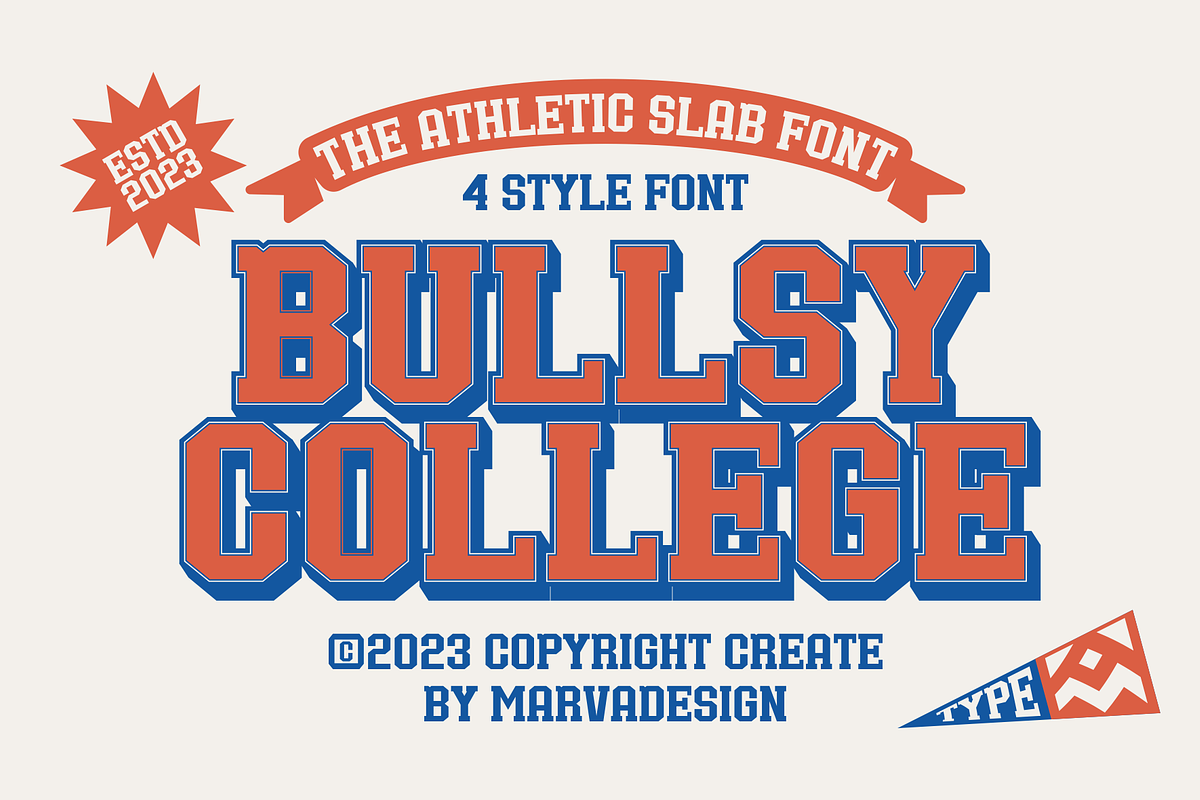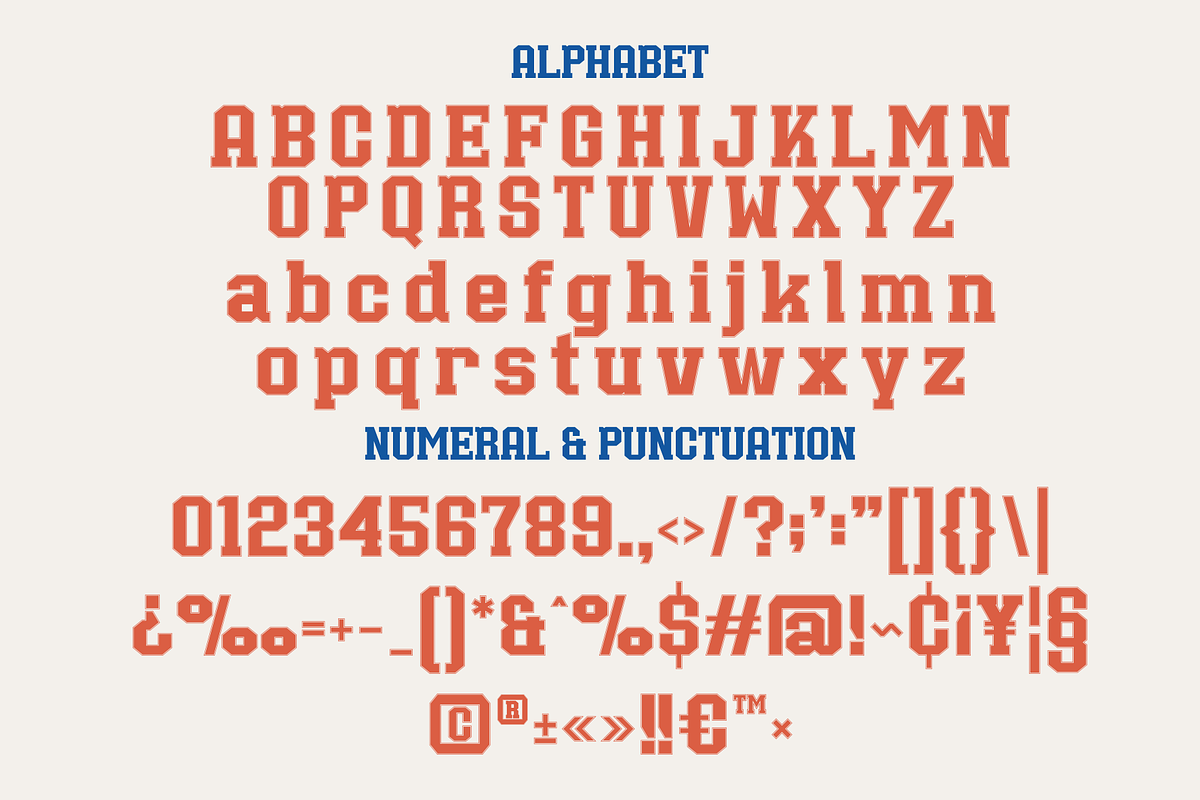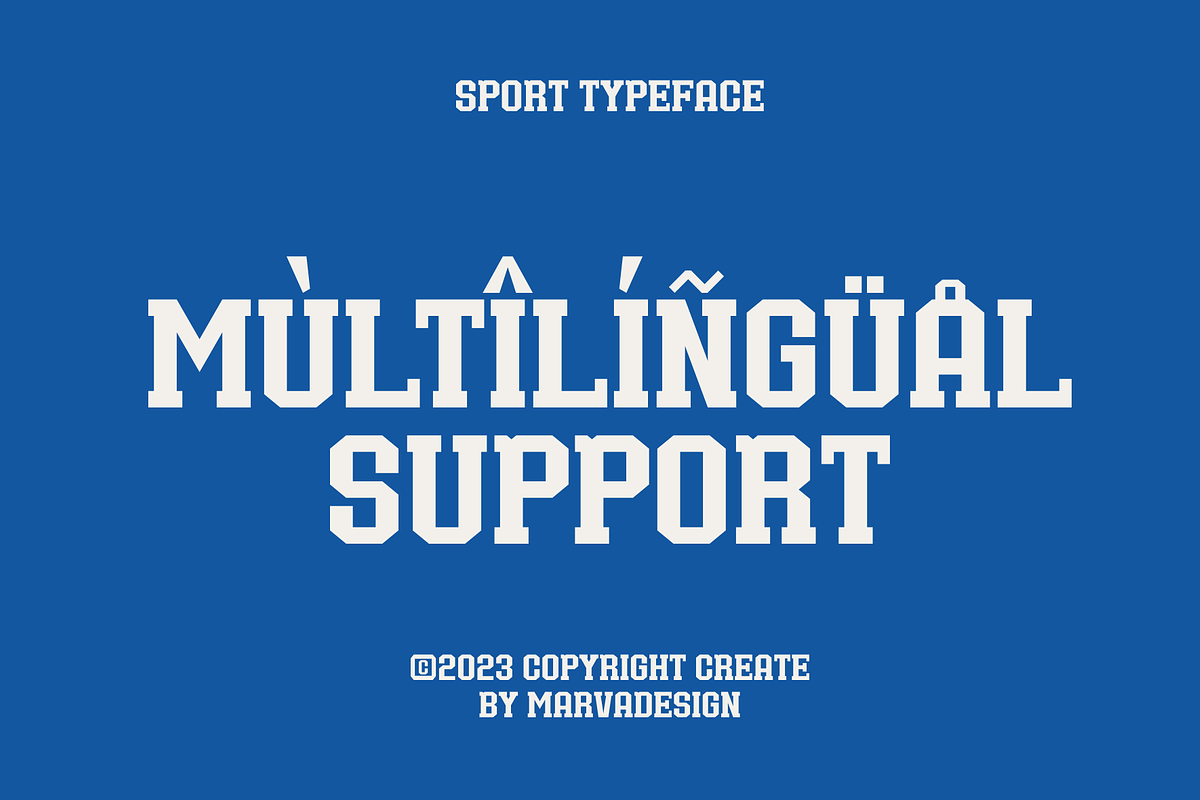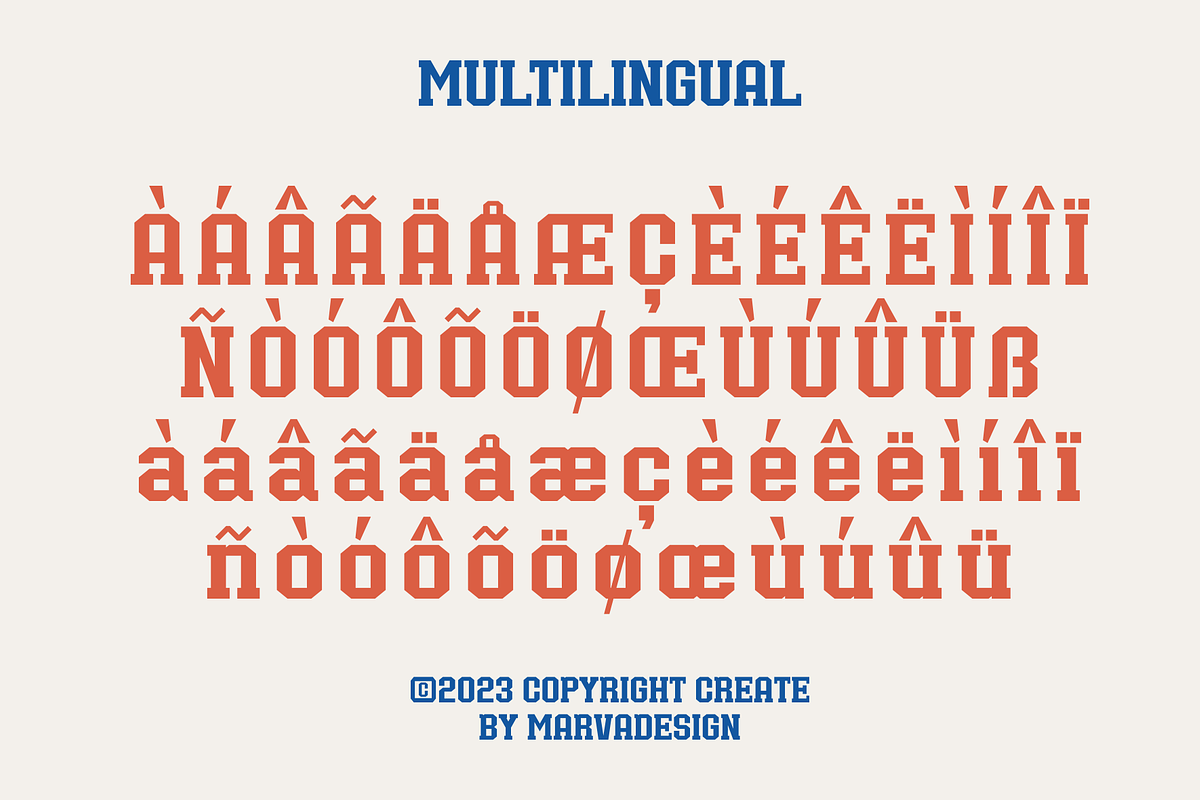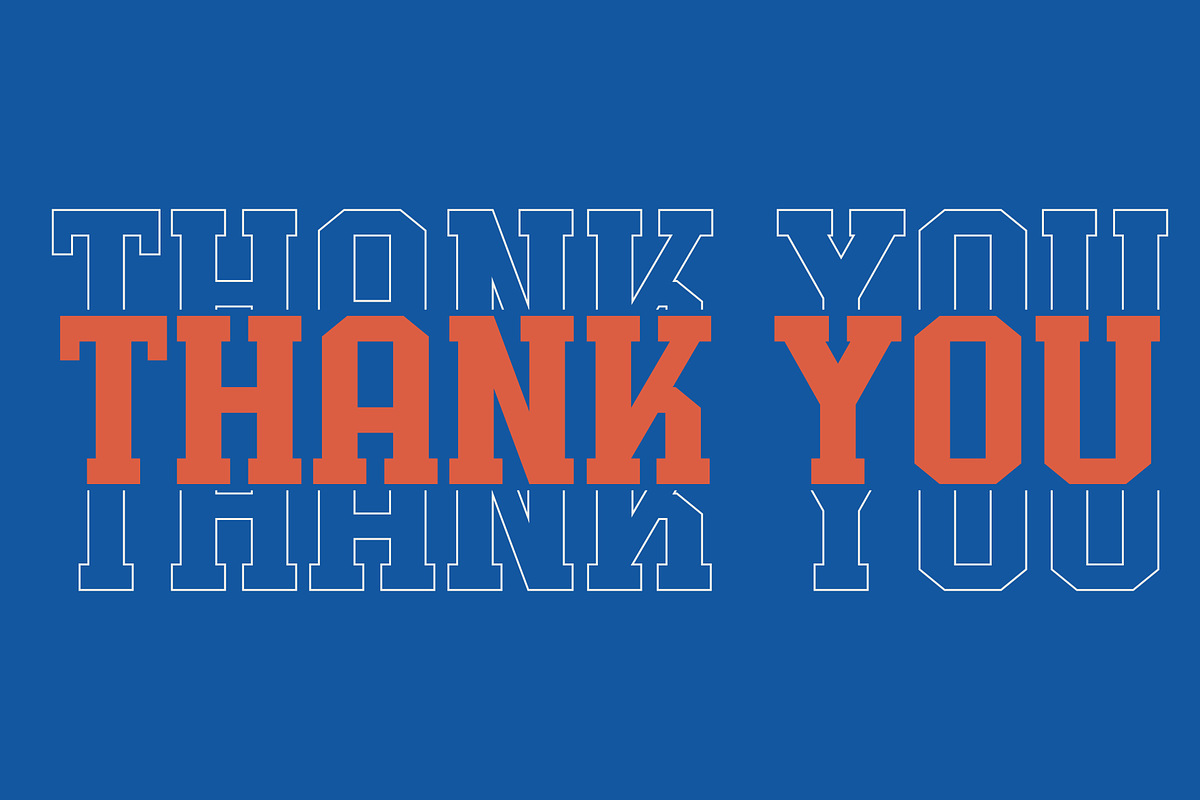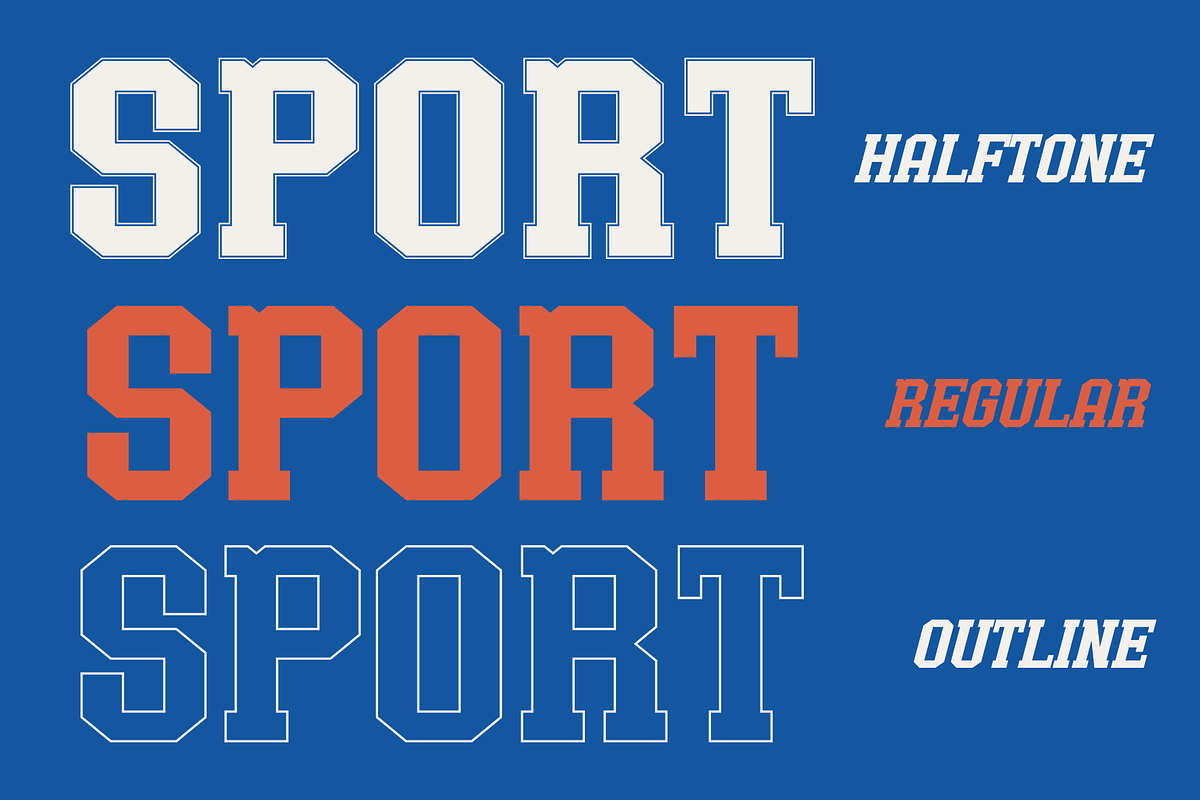
Bullsy College - A Classic Sport
Introducing our new product Bullsy College Font - A Classic Sport Font authentic display font. The font is suitable for any branding project like logo, Template Design, Product and many more. outstanding in a wide range of contexts.